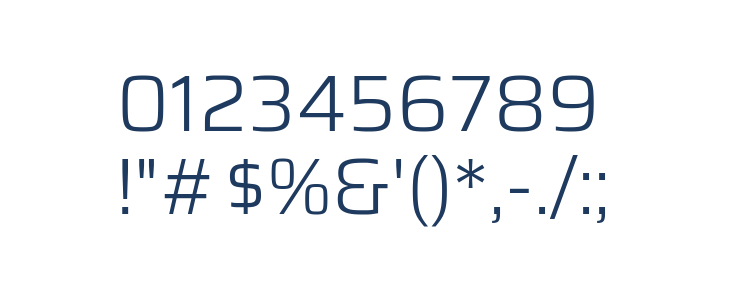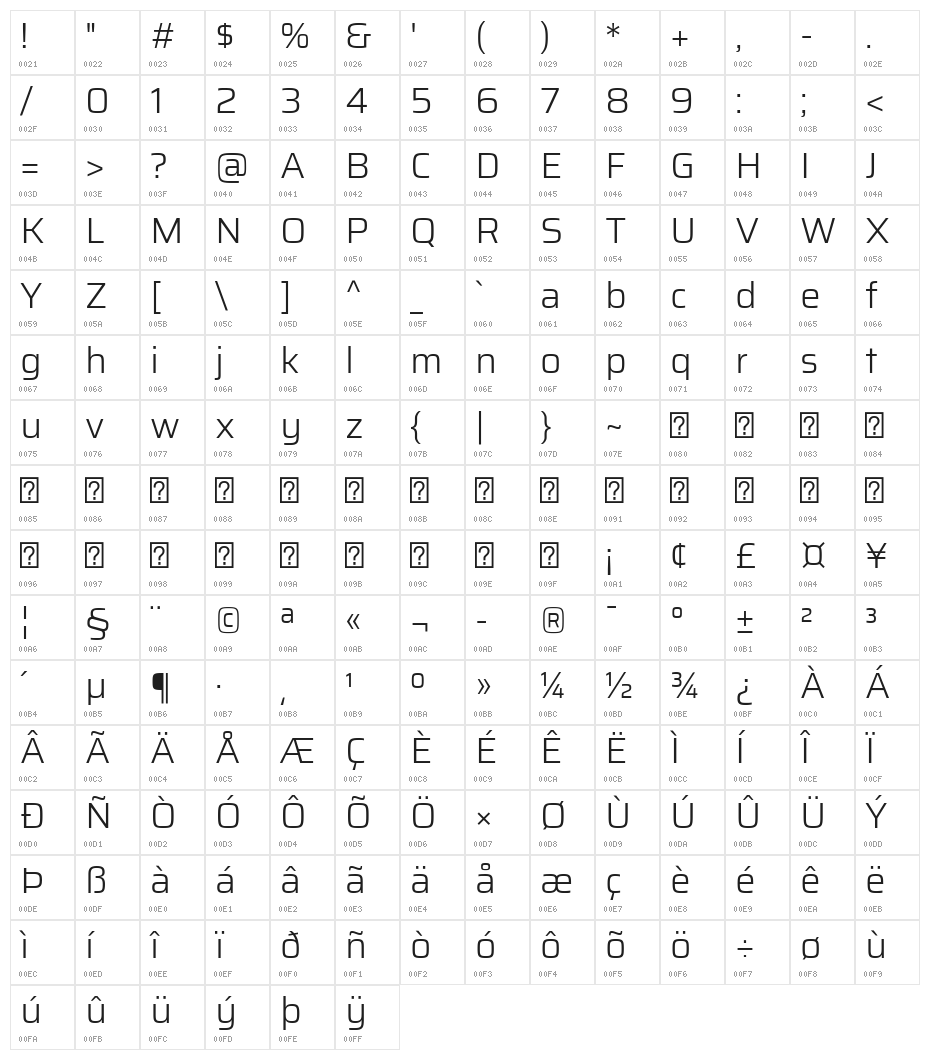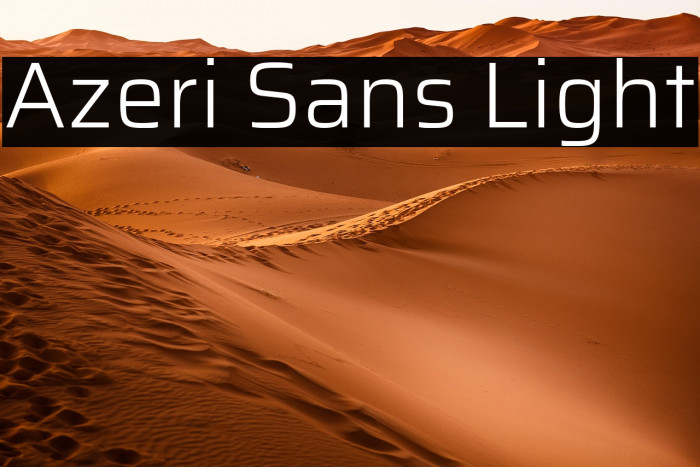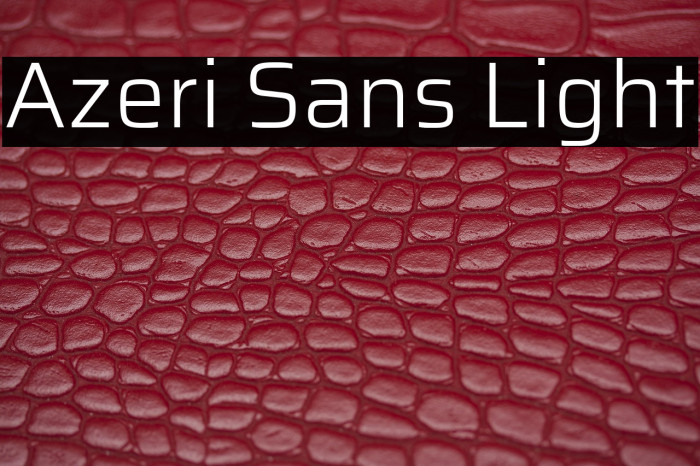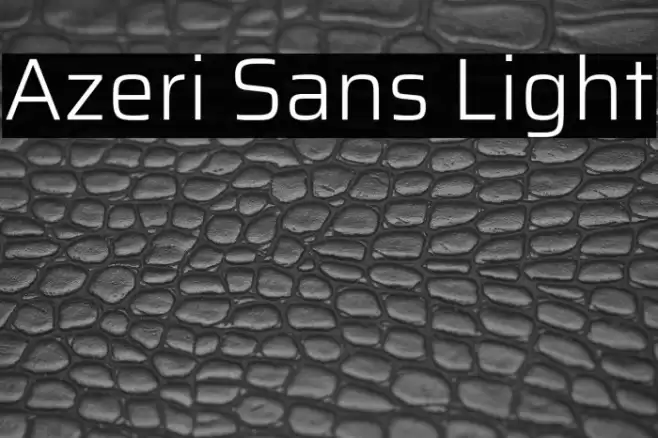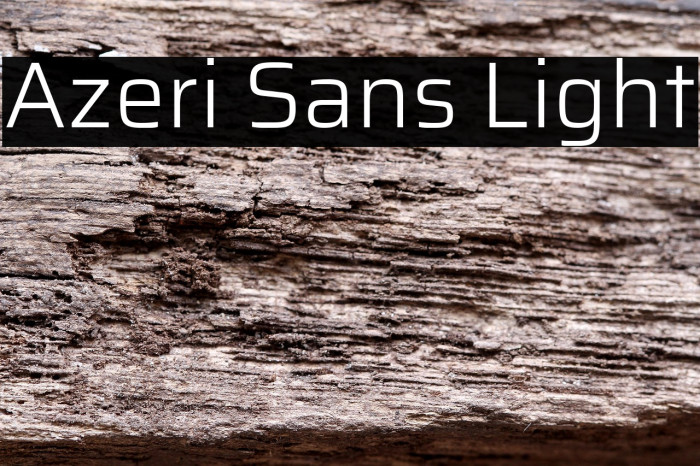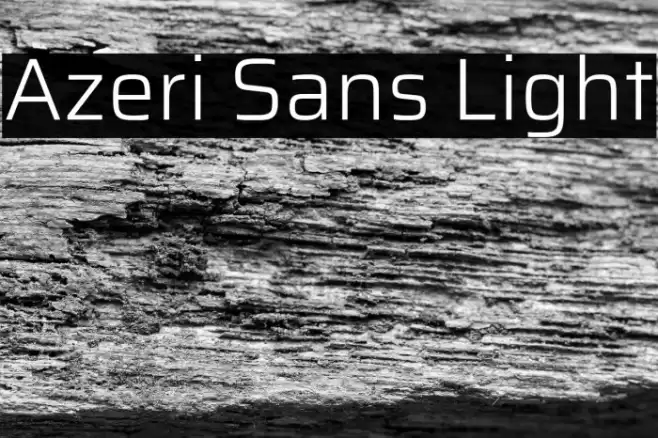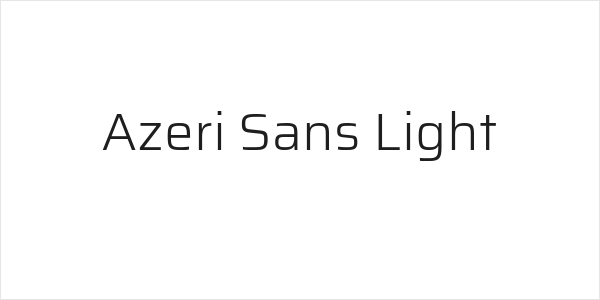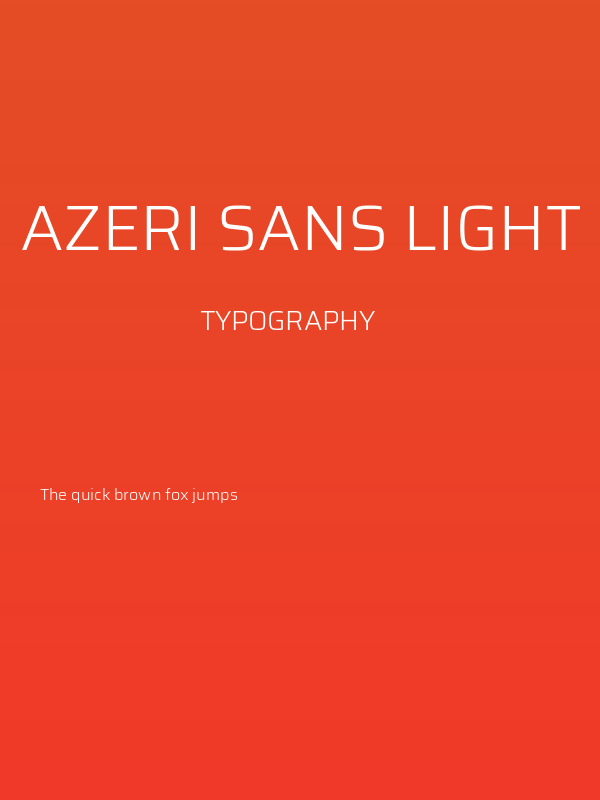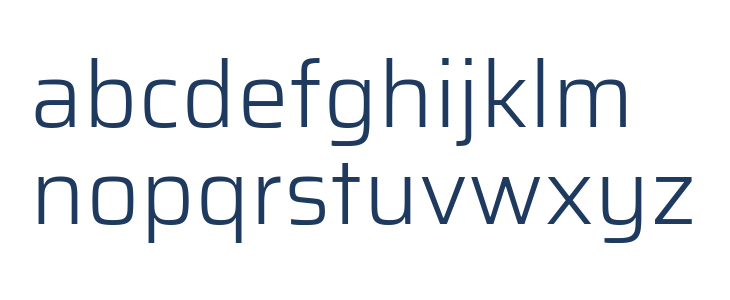
Azeri Sans Light Font
Azeri Sans Light Description
This font presents a clean and modern sans-serif style with a light weight, offering a sleek and professional appearance. The characters are well-proportioned with a uniform stroke width, contributing to its minimalist aesthetic. The uppercase and lowercase letters maintain a consistent design, enhancing readability. The numerals are clear and distinct, making them suitable for various applications. Special characters are elegantly integrated, maintaining the overall harmony of the font. Its simplicity and clarity make it versatile for both digital and print media.